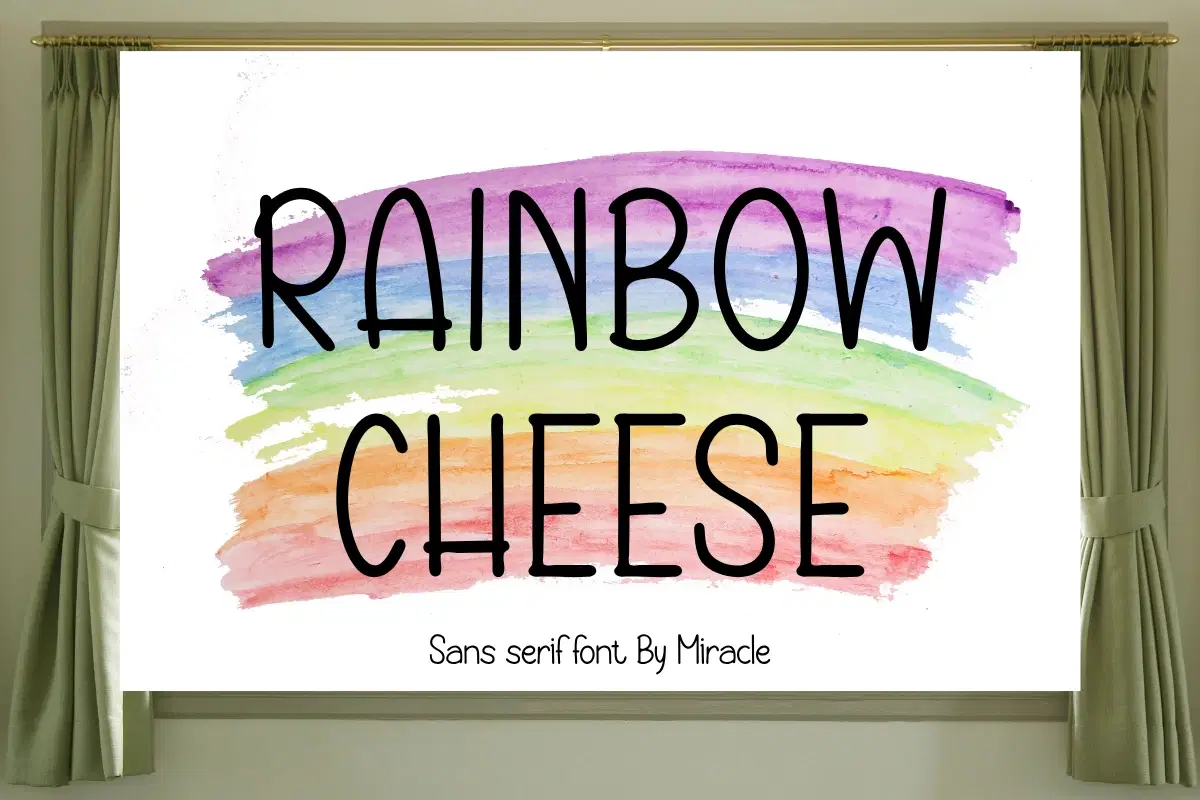
Add a splash of color and a dose of fun to your designs with Rainbow Cheese, a delightful sans serif font by Miracle. With its clean, hand-drawn lines and whimsical character, this font is designed to spark imagination and bring a lighthearted energy to any creative project. It strikes the perfect balance between modern simplicity and playful charm.
Rainbow Cheese is incredibly versatile and easy to read, making it an excellent choice for designs aimed at children, creative brands, and festive celebrations. Its friendly and artistic vibe ensures that your message is delivered with warmth and creativity.